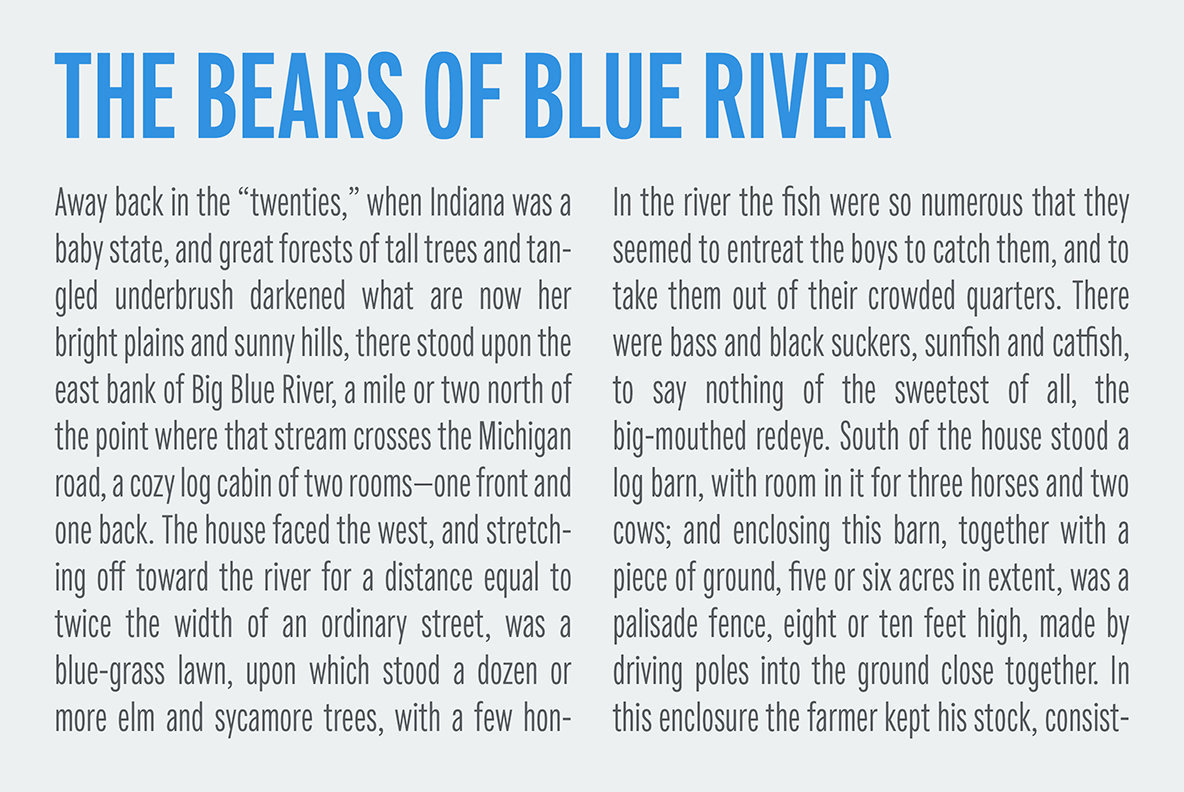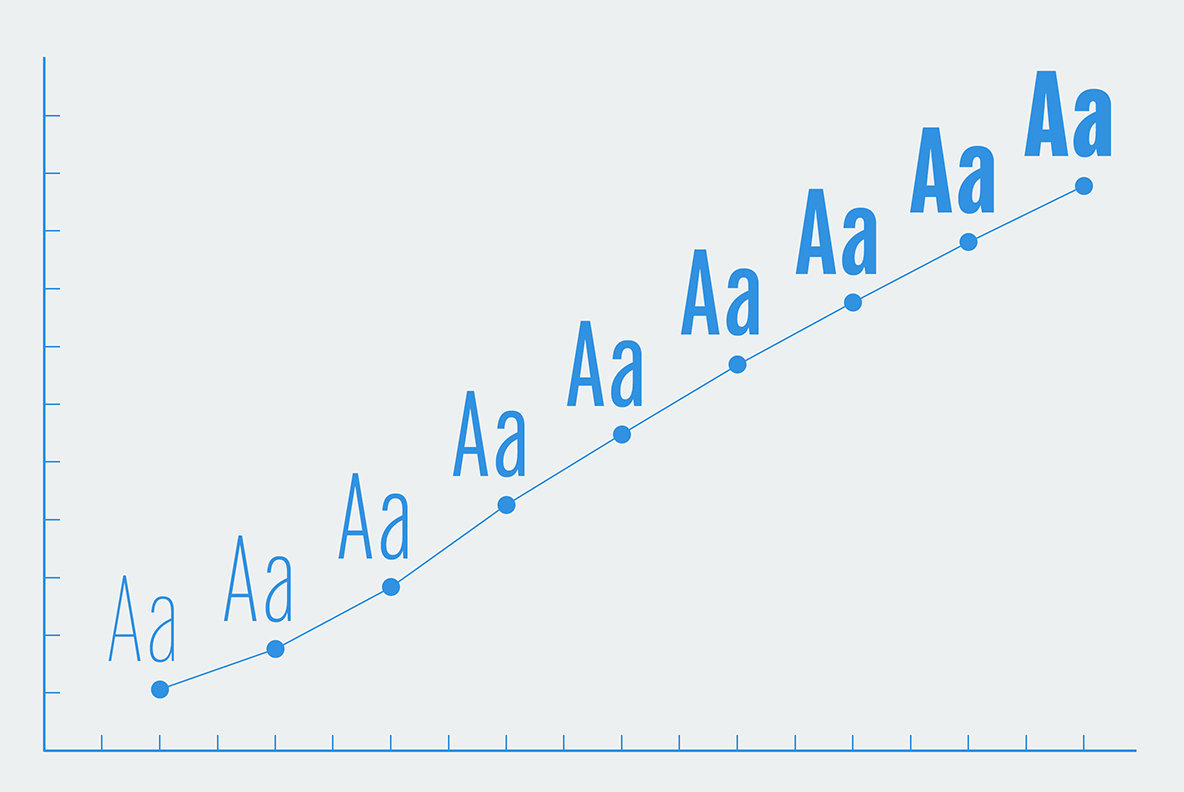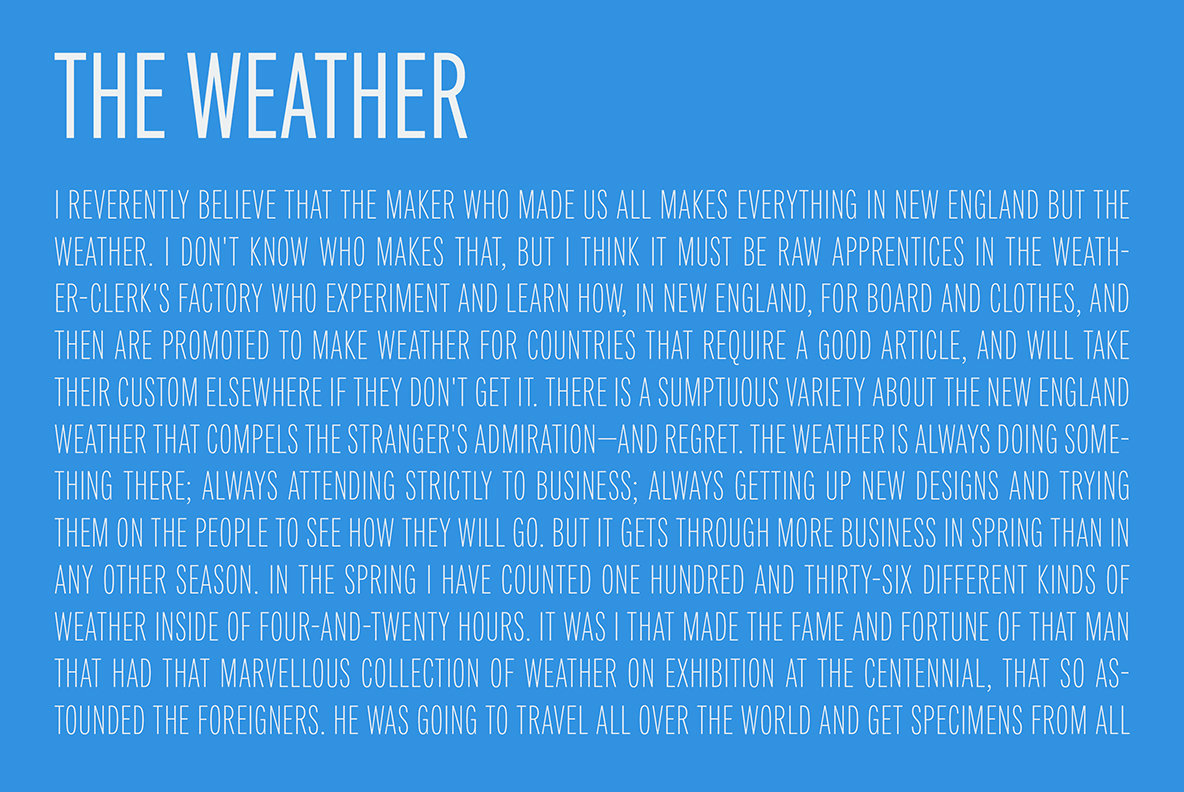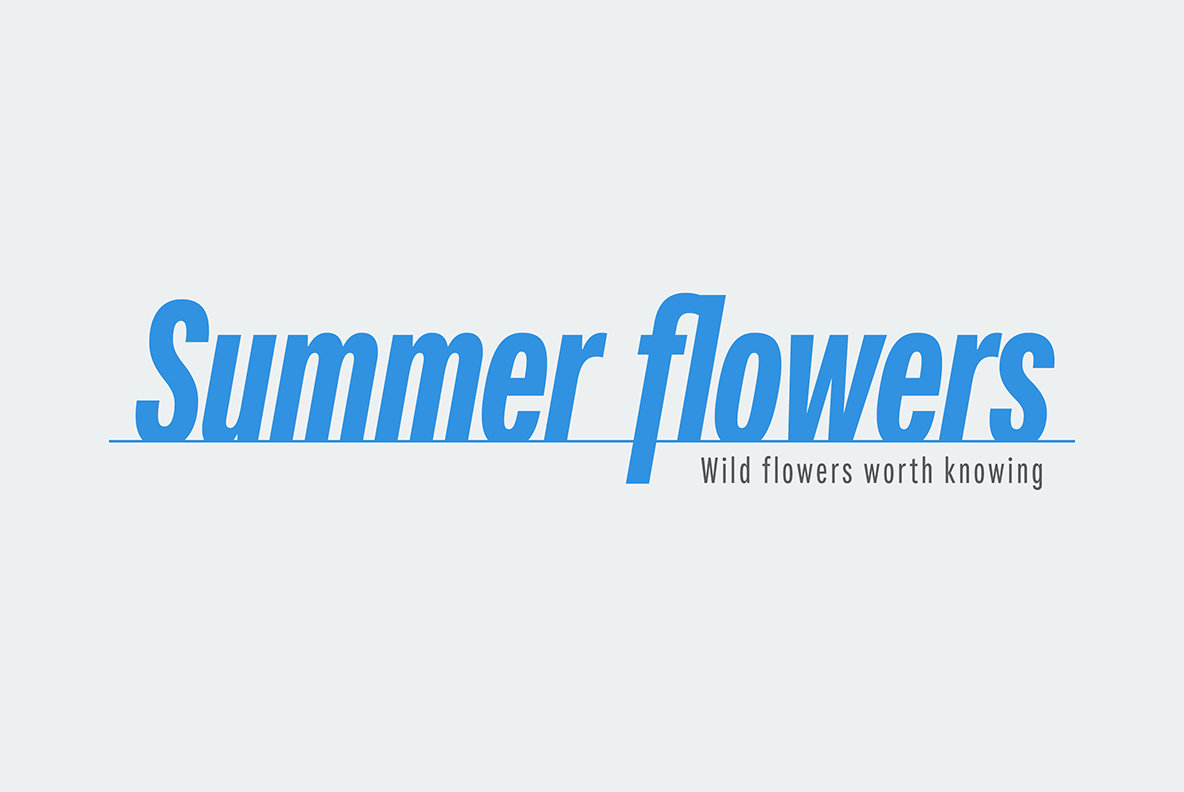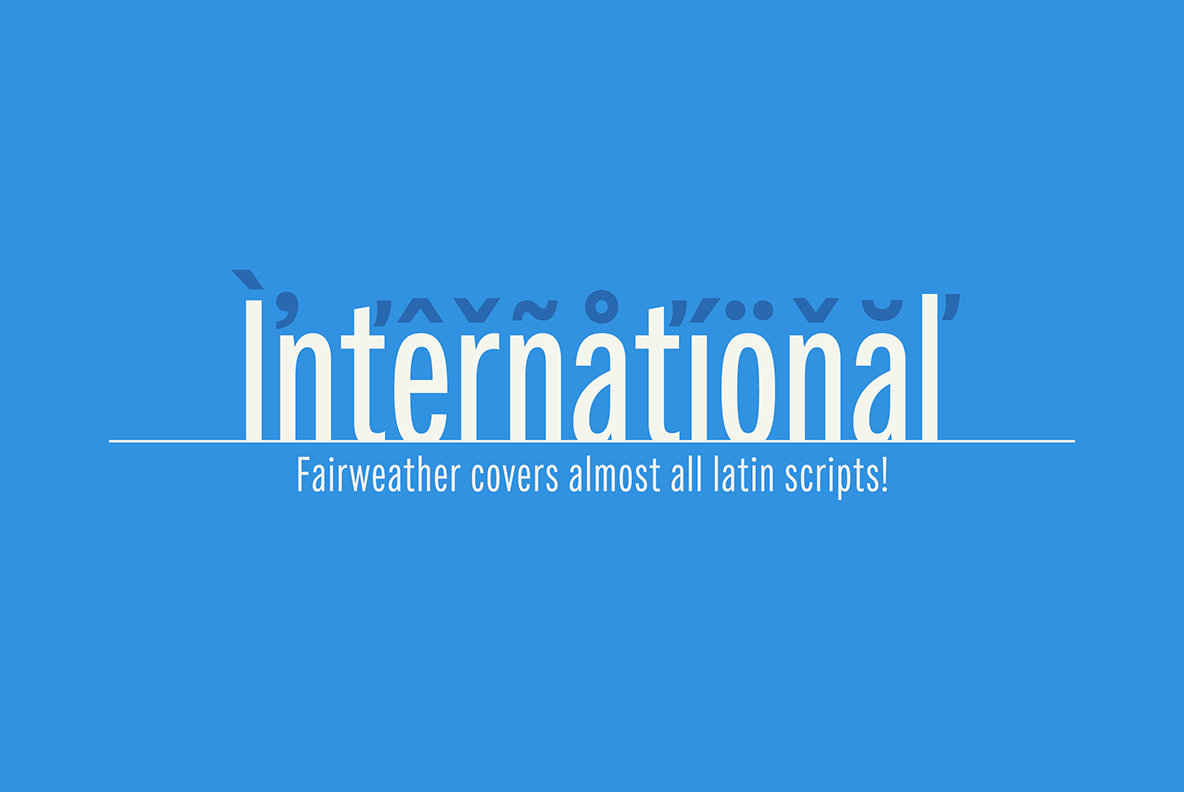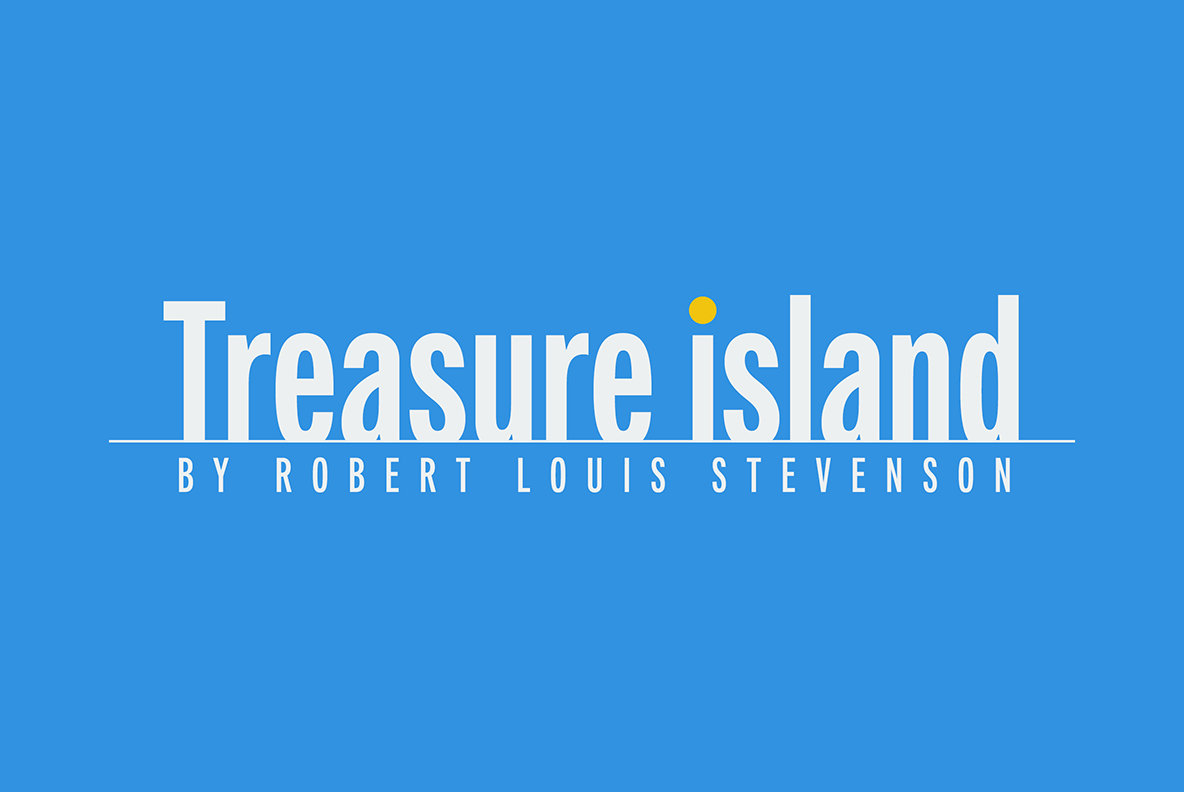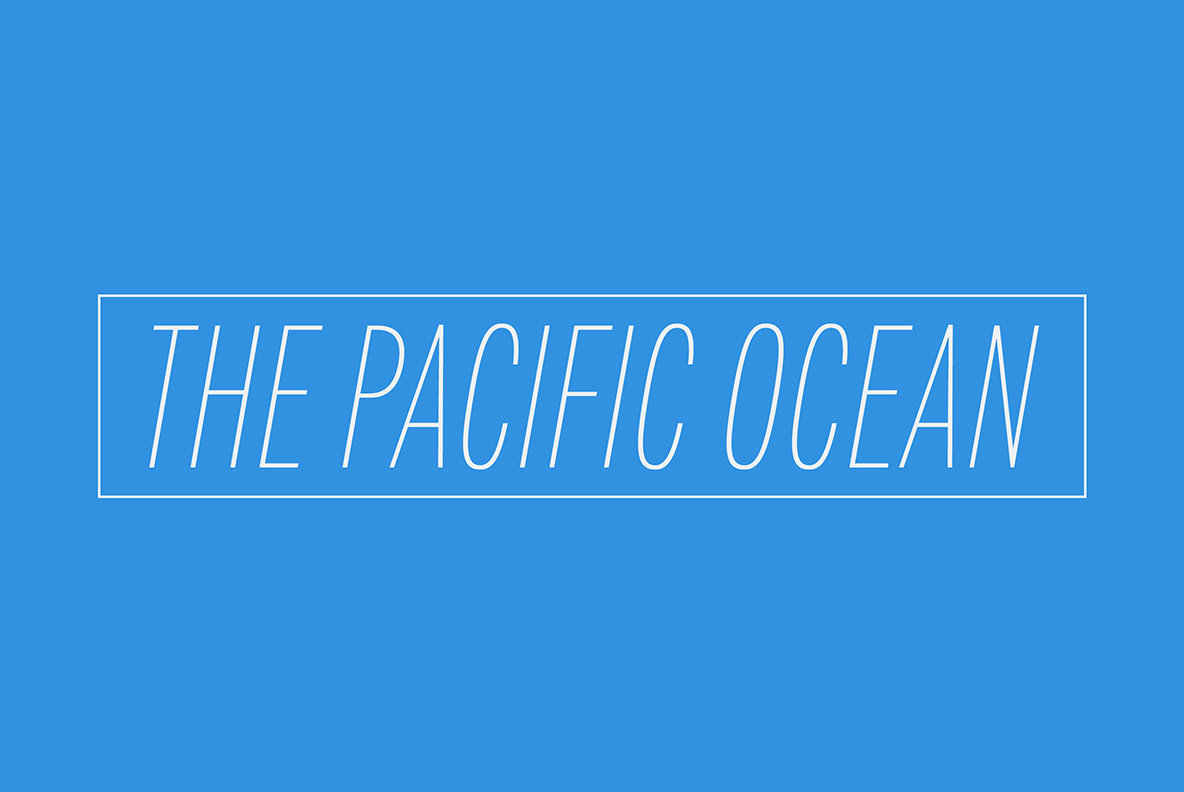
Fairweather Font Family
Fairweather is a fresh air. Clear, transparent, and lucid as if it is the spring and autumn sky. By designed condensed, legible and perspicuous, Fairweather is perfect for titles and captions. But “Title and Captions” are the just examples. Very neutral and plain letter forms make the font versatile.
The condensed forms can be very effective for body text in narrow space and the clean and clear letterform doesn’t intrude your art works.